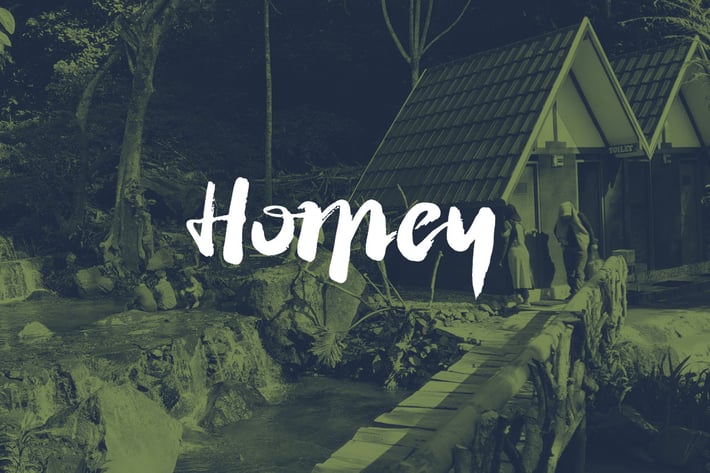
Homey Cursive Brush Font
sukmaraga
I present
HOMEY font
cursive and natural feel from chinese brush.
+ many alternate letter, so same letter placing next to each other don't seem identical
HOMEY font
cursive and natural feel from chinese brush.
+ many alternate letter, so same letter placing next to each other don't seem identical